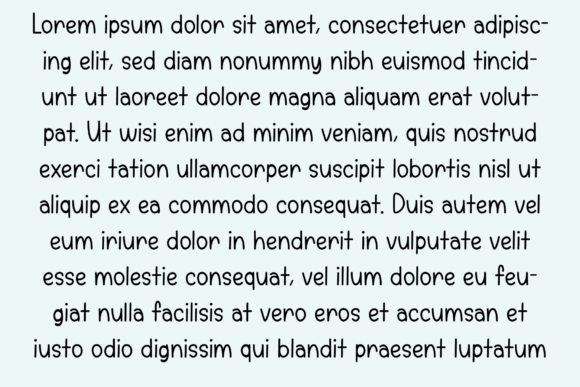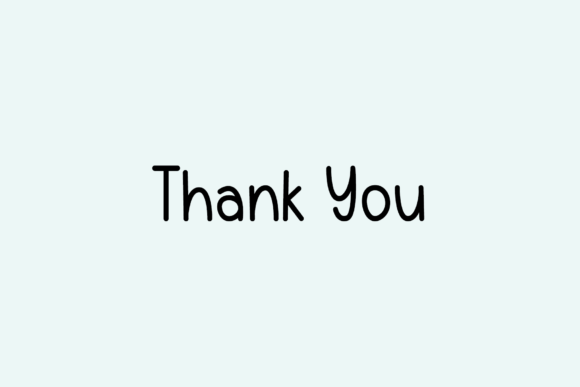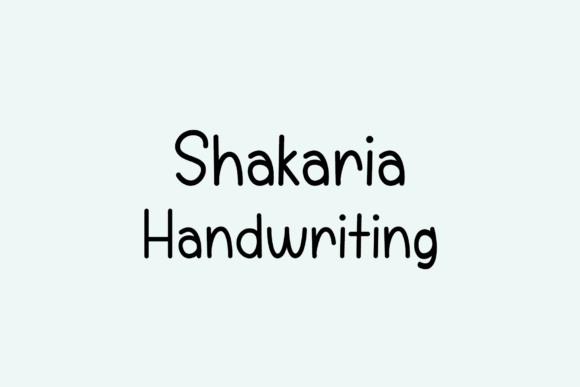
Introduction to Shakaria Font
Shakaria is a fun and friendly handwritten font.
Whimsical and a bit quirky, this font will brighten up each of your designs Add it confidently to your projects, and you will love the results.
Key Features of Shakaria Font